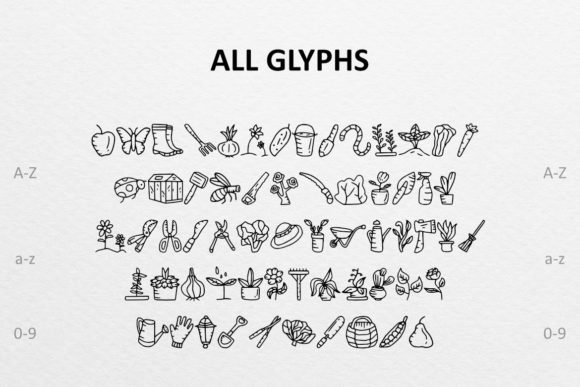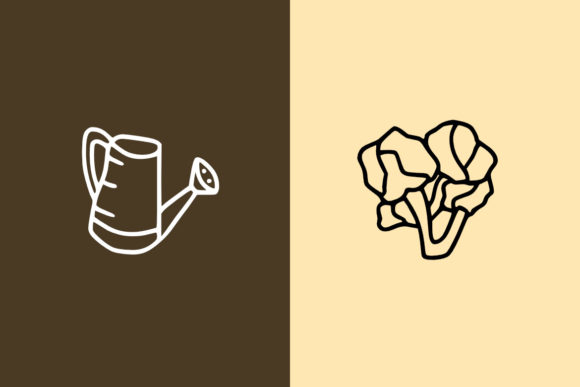
Gardening Doodle Font
Gardening Doodle is a fantastic dingbats font that caters to all your gardening and plant-related design needs. With its collection of 62 symbols, this font offers a wide range of icons and illustrations that can enhance your projects, logos, ornaments, and more.
Whether you’re working on a gardening blog, creating promotional materials for a plant nursery, or designing a logo for a gardening business, Gardening Doodle provides an excellent resource to add visual interest and convey the essence of gardening and plants.
The symbols in Gardening Doodle cover a variety of gardening-related elements, including plants, flowers, tools, pots, and various garden-themed illustrations. From watering cans and gardening gloves to potted plants and garden insects, this font offers a diverse set of symbols that can bring your gardening designs to life.
The versatility of Gardening Doodle extends to different design formats and mediums. Whether you’re creating digital graphics for websites and social media, designing print materials such as brochures and flyers, or even crafting garden-themed merchandise, Gardening Doodle provides symbols that can be seamlessly integrated into your designs.
The symbols in Gardening Doodle are designed with attention to detail, ensuring that they maintain their clarity and legibility even at different sizes or resolutions. Whether you’re using them for small icons or large-scale prints, the symbols will retain their visual appeal, allowing your designs to shine.
By incorporating Gardening Doodle into your designs, you can add a touch of charm and personality, creating visually engaging compositions that celebrate the beauty of gardening and plants. The symbols provide a visual language that speaks to gardening enthusiasts and captures the essence of nature’s wonders.
So, unleash your creativity and explore the endless possibilities that Gardening Doodle offers. Let the symbols inspire your designs and bring your gardening-themed projects to life. With Gardening Doodle, you can infuse your creations with the joy and beauty of gardening, captivating your audience and inviting them into the world of plants and nature.